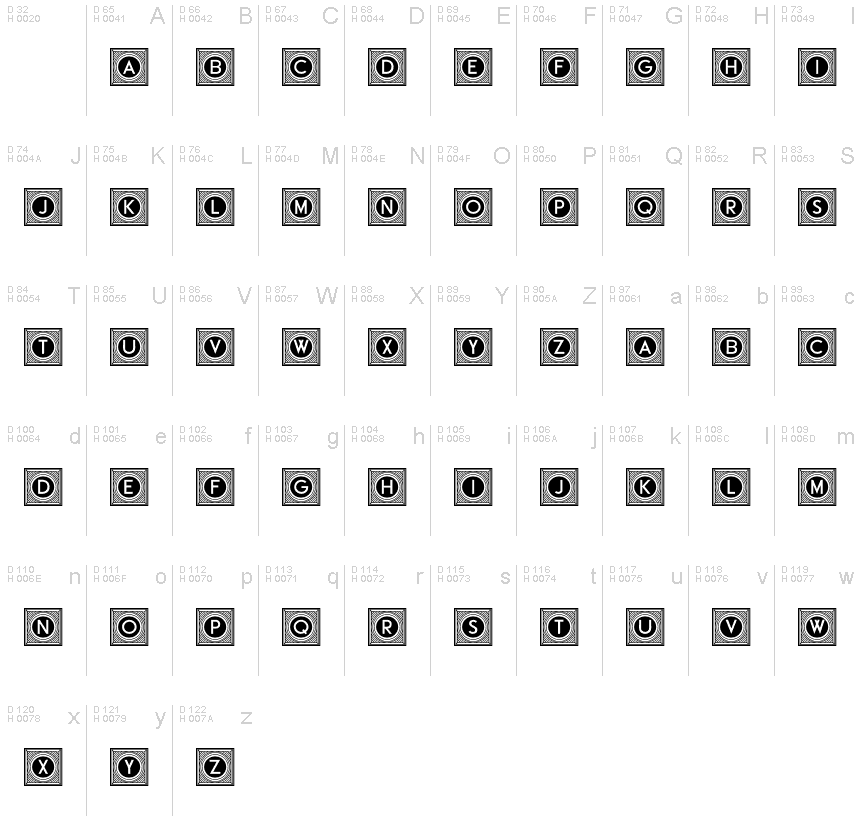
Official Capitals Black Regular
Official Capitals Black is a stunning display font from the Official Capitals font family, designed by Vladimir Nikolic. With its decorative style and semi-light weight, this font exudes elegance and sophistication. Its refined strokes and bold presence make it perfect for projects that require a touch of grandeur. From luxury branding to high-end editorial designs, Official Capitals Black adds a regal charm to any project. Create attention-grabbing headlines, logos, or invitations with this ypeface that will surely leave a lasting impression on your audience.
It comes in Regular, Black and Negative version!